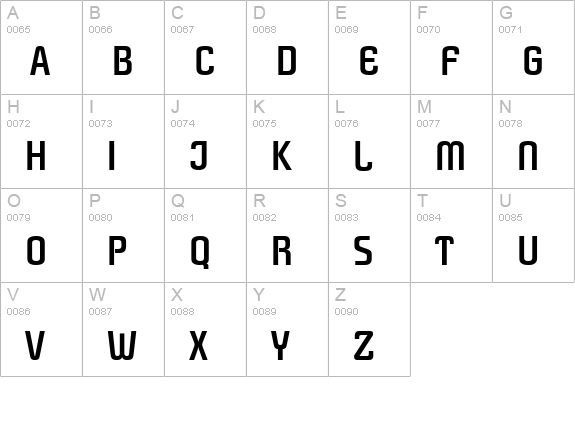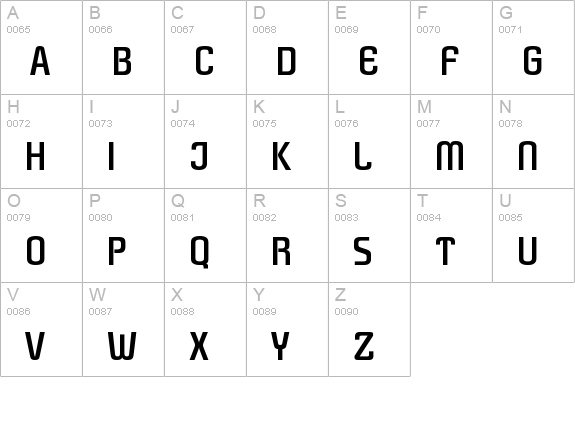
PasadenaSerial-Medium-Regular is a balanced, medium-weight variant in the PasadenaSerial typeface family \xE2\x80\x94 well suited to sub-headlines, navigation, and balanced editorial work.
PasadenaSerial-Medium-Regular font is a versatile and stylish typeface that exudes a sense of modern sophistication. With its clean lines and balanced proportions, this font is perfect for a wide range of design projects, from branding to editorial layouts. The medium weight strikes the perfect balance between elegance and readability, making it suitable for both headlines and body text. What sets PasadenaSerial-Medium-Regular font apart is that it is available for free download at FontsMarket.com. This means you can easily access this high-quality font without any cost, allowing you to enhance your designs with professional typography without breaking the bank. Don't miss out on this opportunity to elevate your projects with PasadenaSerial-Medium-Regular font today!